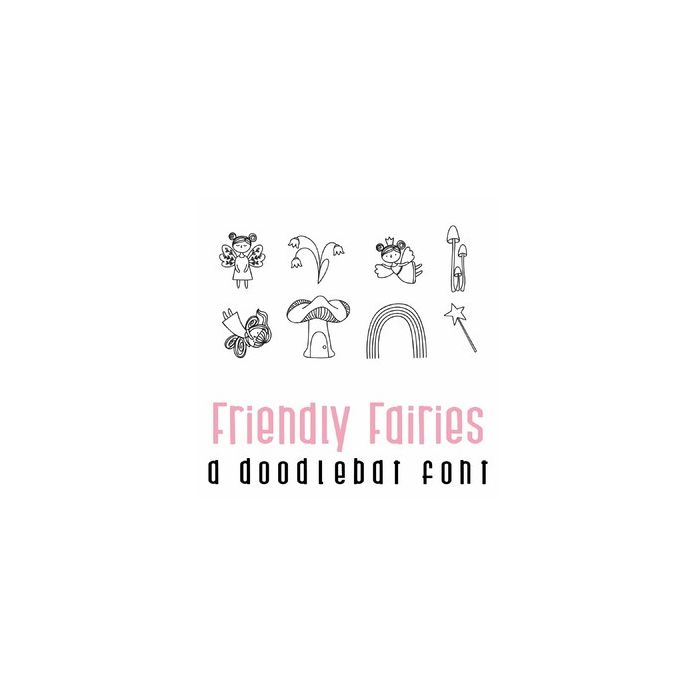
Friendly Fairies Doodlebat Font
This fun doodlebat font features 26 doodle style fairies. Perfect for cards, gifts, decor, crafts, scrap book pages, planner stickers and more!